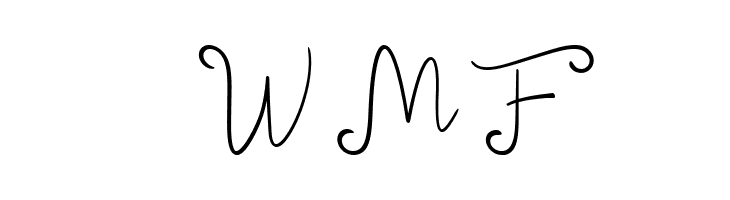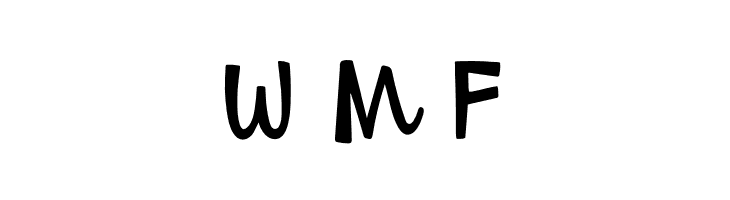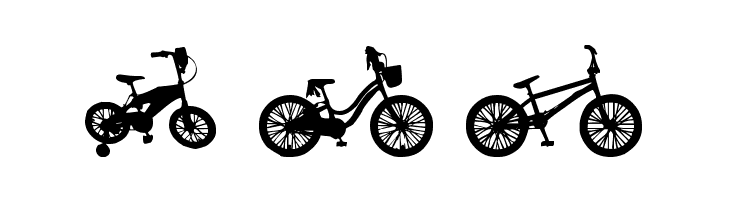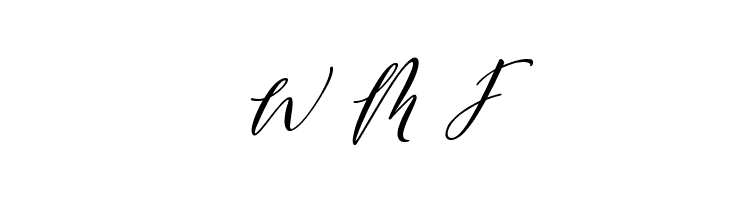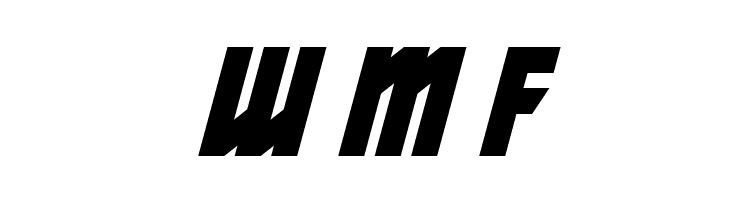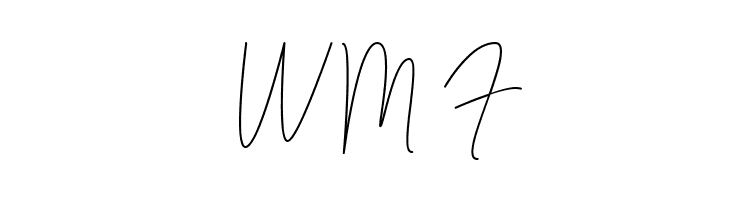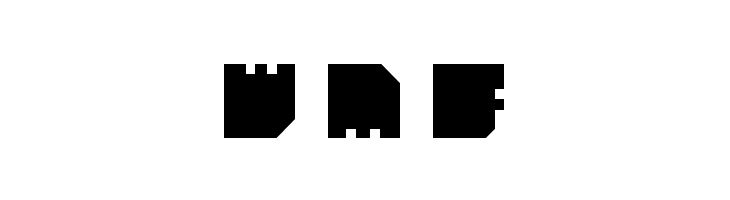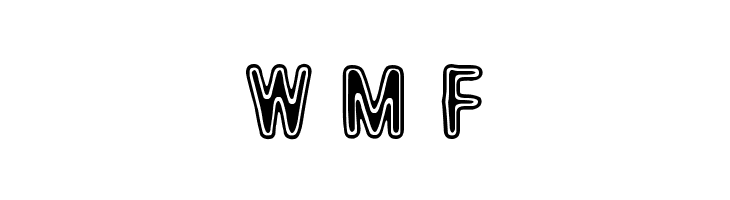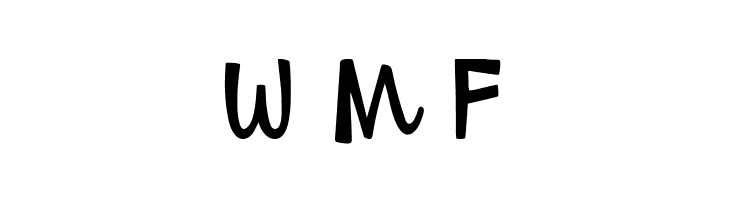
A bold, stencil-style font with a rugged, industrial design.
A bold, distressed font with a vintage, rugged texture.
An elegant, flowing script font with ornate uppercase and delicate lowercase letters.
A lively handwritten font with expressive, fluid strokes.
A bold, playful font with rounded characters and a modern style.
Bold, blocky font with thick contours and a playful style.
A modern, slightly condensed font with dynamic slanted uppercase and rounded lowercase letters.
A playful, hand-drawn font with a whimsical and artistic style.
A whimsical, decorative font with playful curls and loops.
A playful and whimsical font with bold, curvy elements and creative swirls.
An elegant, cursive font with a sophisticated, handwritten style.
A playful, handwritten font with smooth, flowing lines and a casual style.
An elegant script font with intricate swirls and decorative flourishes.
A playful, cursive script font with elegant loops and swirls.
A festive collection of hand-drawn Christmas-themed doodles for holiday designs.
A whimsical collection of hand-drawn Christmas-themed doodles.
A playful, rounded font with a whimsical and friendly appearance.
A playful, chunky font with whimsical curls and bold strokes.
A playful and whimsical font with curly, decorative elements.
A playful serif font with curly, whimsical elements.
A graceful, flowing script font with elegant, continuous strokes.
A casual, handwritten font with a friendly and approachable style.